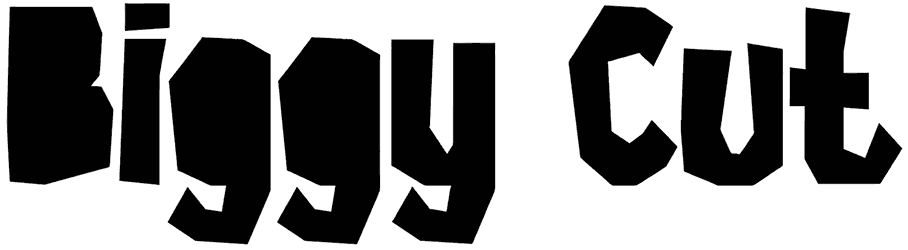
Biggy Cut Font
Satisfy your inner child and express any feelings by selecting a fitting cartoon font like Biggy Cut to write text amazingly. This cut out font with its chunky lettering forms will be valuable in inventing stickers, book covers, postcards, animations, and wherever you like to be friendly to yourself.